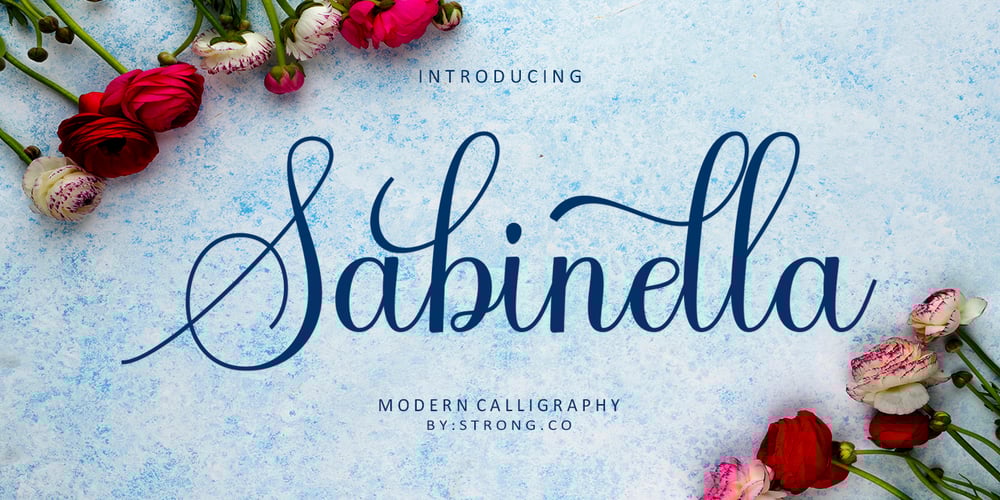
Sabinella Script Font Family was designed by Nanda Putra Sukmayadi and published by Strong. Sabinella Script contains 1 styles and family package options. New “Sabinella script” font Perfect for text cushions, mugs, frames, logo types and other home decorations make your home look attractive with neat calligraphySabinella is a magical script font carefully created with a touch of elegance. This is a beautiful combination of timeless elegance and authentic calligraphy. It features an incredibly classic style, while still keeping a friendly feel. Sabinella is the perfect font for making original and outstanding designs. You will get:Thank you for your attentionHave a nice day ๐